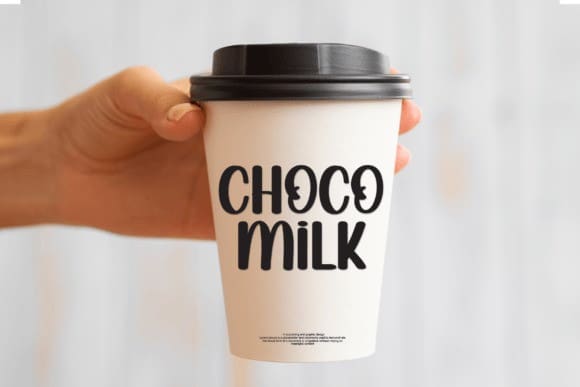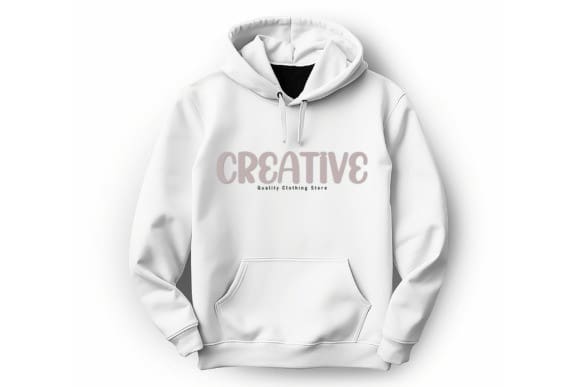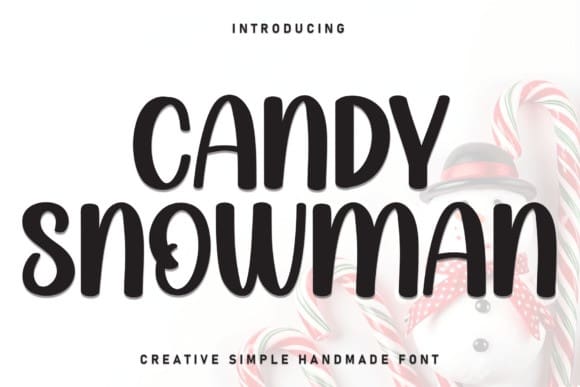
Candy Snowman Font
Candy Snowman Font, encapsulating an essence that’s both sweet and friendly, it effortlessly elevates the mood of any project. Exuding a playful yet refined vibe, it’s the perfect choice for wedding invitations, card designs or any creative endeavor that could benefit from an infusion of joy. Experience the innocent allure of this adorable font, perfectly tailored to add enchantment to your creative universe!